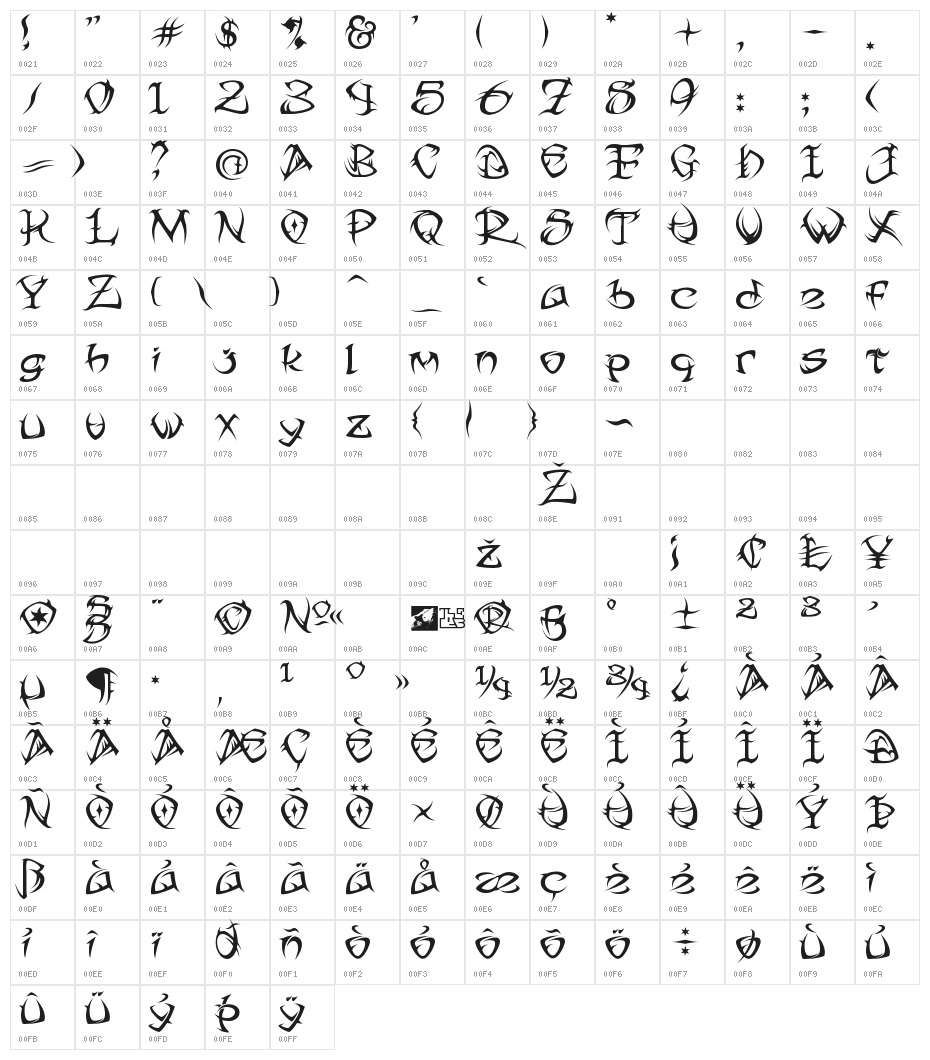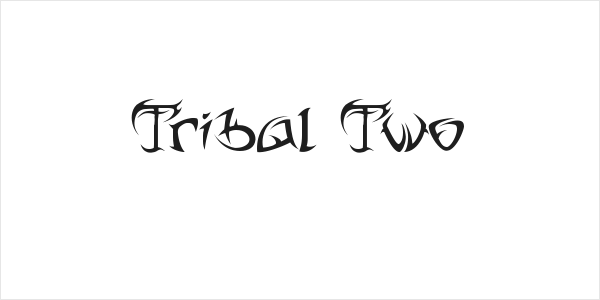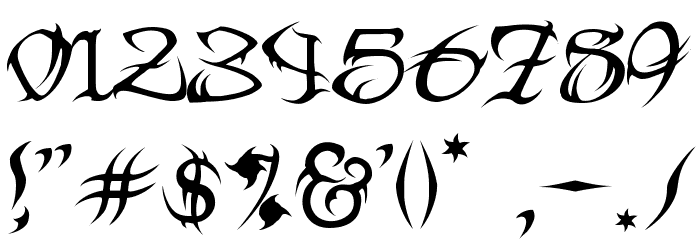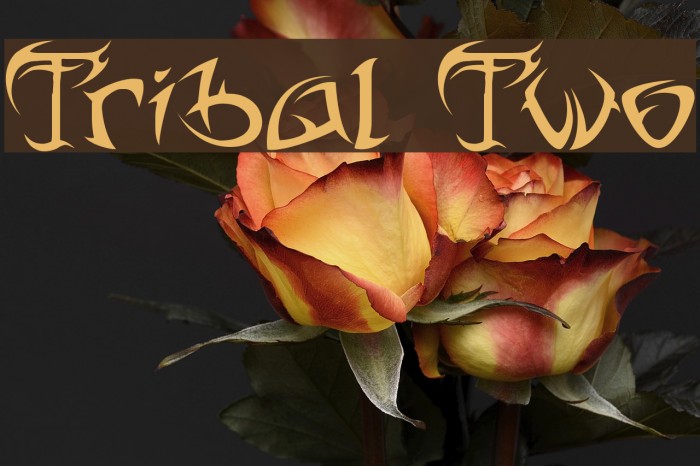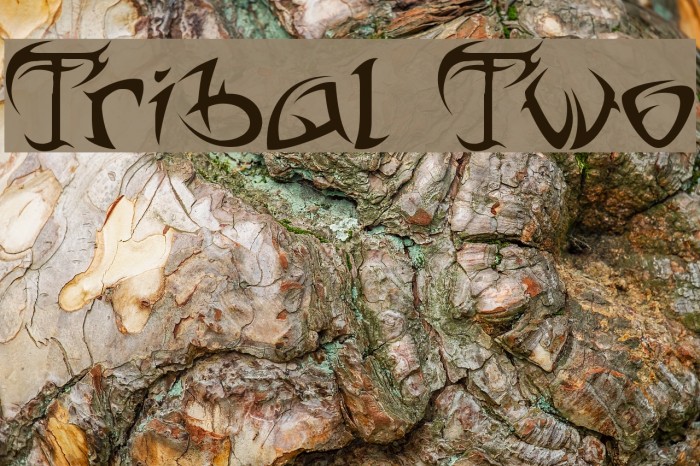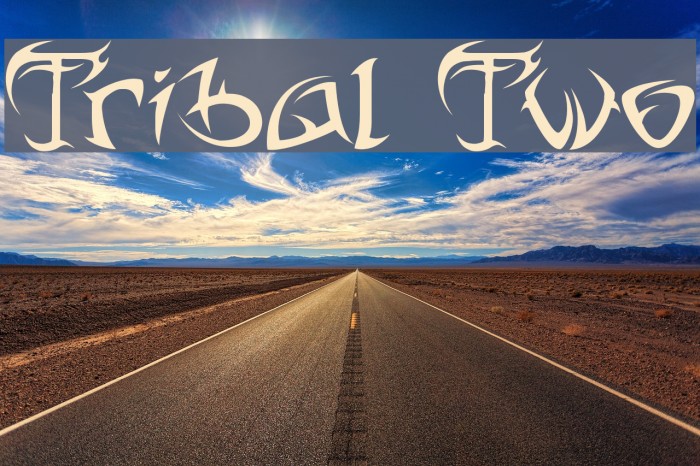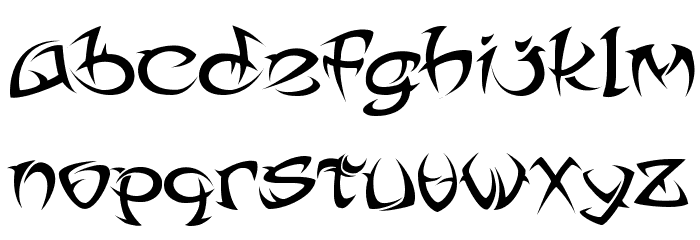
Tribal Two Font
Tribal Two Description
This font features a bold, tribal-inspired design with sharp, angular edges and intricate detailing. Each character is crafted with a unique flair, resembling tribal tattoos or ancient symbols. The uppercase and lowercase letters maintain a consistent style, with exaggerated curves and pointed ends that give the font a dynamic and aggressive appearance. The numbers and special characters follow the same aesthetic, ensuring a cohesive look across all text. This font is ideal for projects that require a strong, impactful visual presence.
| Use Case | Logos, Headlines, Posters |
| Proposed Projects | Perfect for tattoo designs, album covers, posters, and branding that requires a bold, edgy look. |